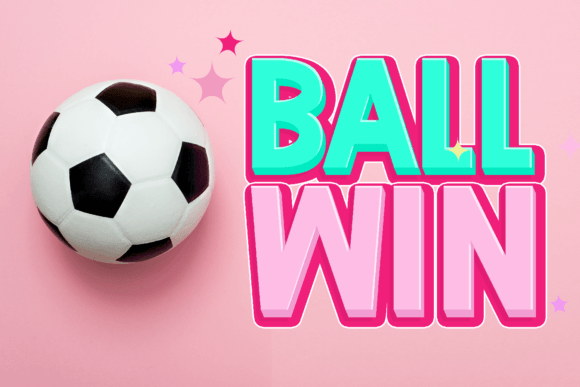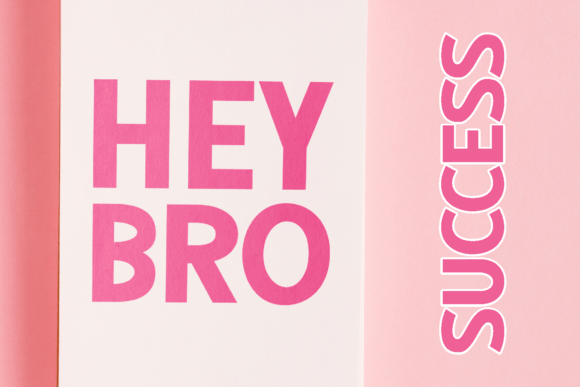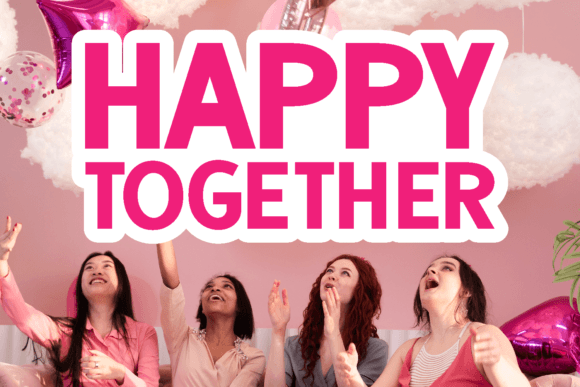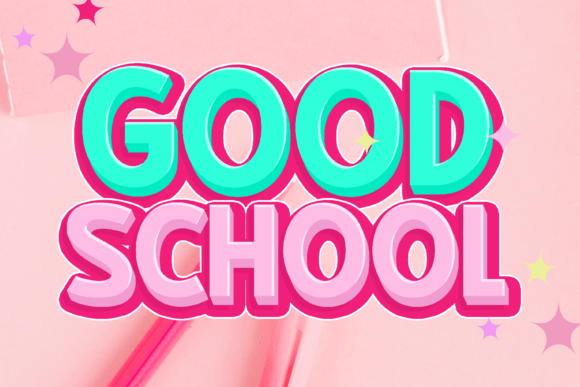
Introduction to Show Party Font
Introducing Show Party: a vibrant display typeface with a touch of charm, perfect to uplift your design narratives.
Sporting a distinctive chunky style, this thick font inserts a hint of fun and joy, making it an ideal choice for childrenโs dรฉcor and designs Its visually striking quality makes it stand out in headlines, titles, and book covers, infusing them with an authentic, squeaky clean aura.